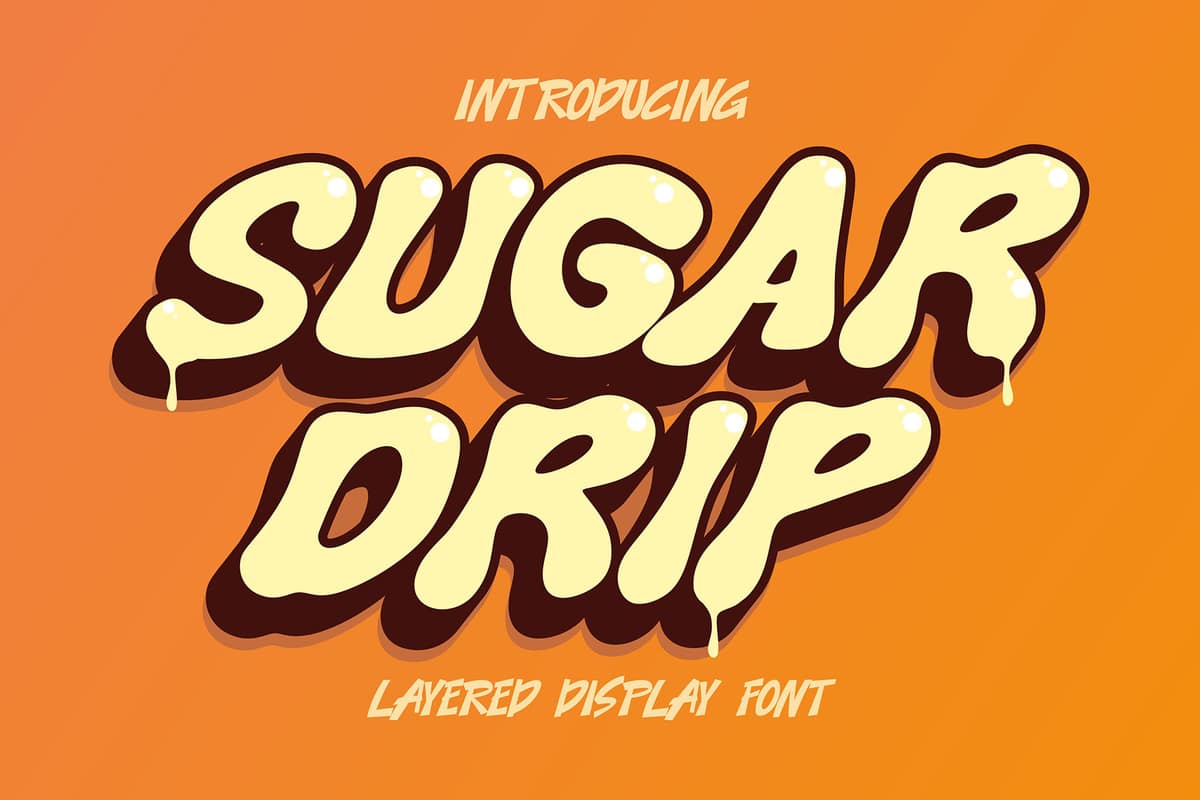
Sugar Drip
Sugar Drip is a bold and eye-catching layered display font designed to add a unique drip effect to your projects. With its playful yet edgy look, this font is perfect for creating standout designs that leave a lasting impression.